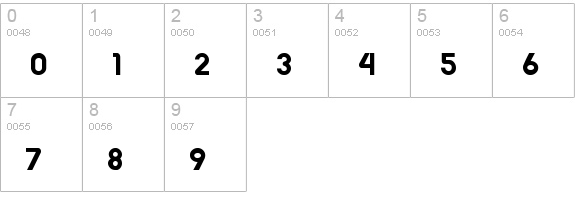
Howard-Fat Regular is the standard, neutral variant in the Howard typeface family \xE2\x80\x94 well suited to general body text, paragraphs, and standard typographic work.
The Howard-Fat Regular font is a versatile and bold typeface that exudes strength and confidence. With its thick strokes and clean lines, this font is perfect for making a statement in design projects that require a strong visual impact. Designed for maximum readability and impact, the Howard-Fat Regular font is ideal for headlines, posters, banners, and other display purposes. Its bold presence commands attention and adds a touch of modernity to any project. Best of all, the Howard-Fat Regular font is available for free download at FontsMarket.com. This means you can easily access and use this impactful typeface in your design projects without any cost. Don't miss out on the opportunity to enhance your designs with the Howard-Fat Regular font today!